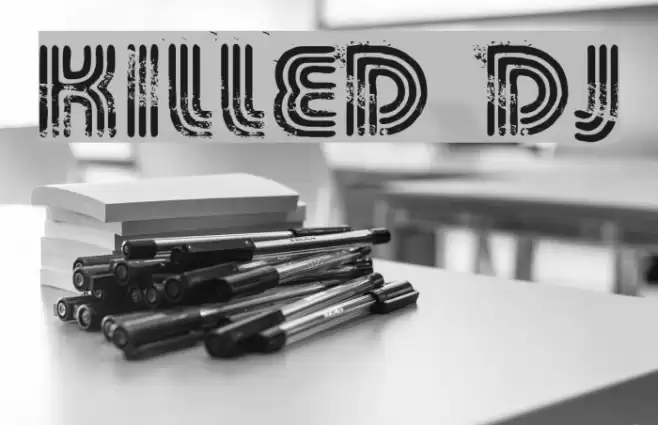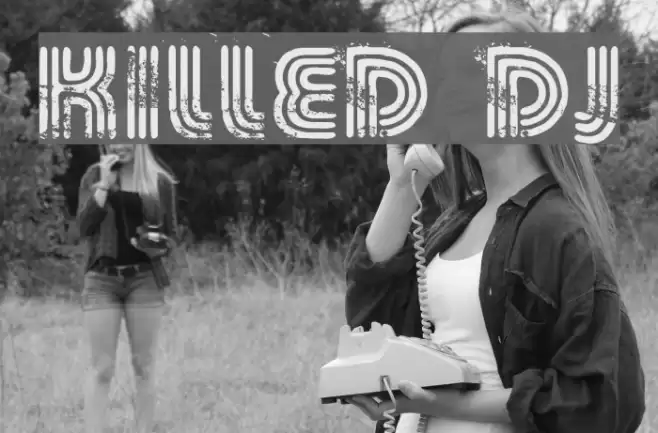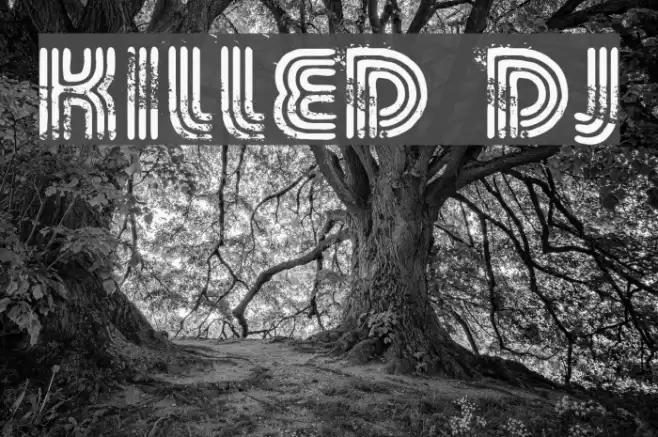
KILLED DJ Font
KILLED DJ Description
This font features a bold, distressed style with a unique, layered appearance. The characters are composed of multiple parallel lines, creating a sense of depth and texture. The distressed effect gives it a worn, vintage look, making it ideal for projects that require a rugged or industrial feel. The uppercase letters are prominent and eye-catching, while the overall design maintains a consistent, structured form. This font is particularly suited for creative and artistic projects where a bold statement is needed.
A bold, distressed font with a layered, vintage appearance from Uncategorized fonts.
- Proposed Projects: Ideal for posters, album covers, branding, and any design needing a bold, vintage aesthetic.
- Overall Style: Vintage